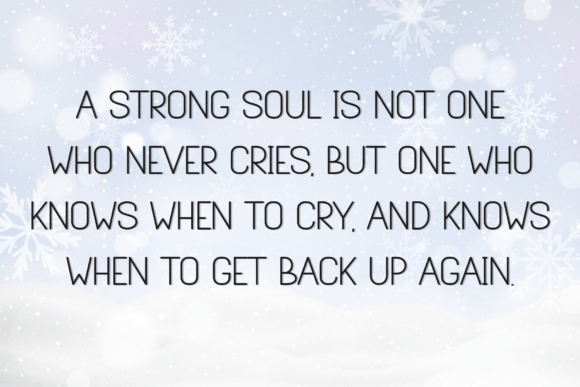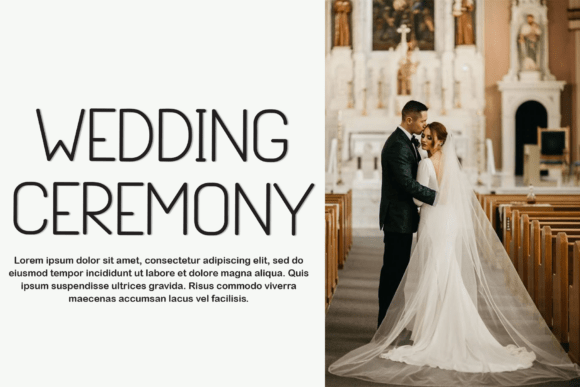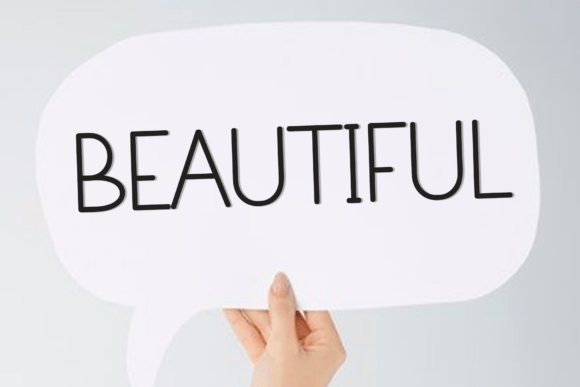
Introduction to Mother Queen Font
Have you ever been browsing through a design project and come across a font that perfectly captures the essence of your creative vision? For many designers, this moment is a game-changer – the perfect combination of style and functionality that elevates their work to the next level. This is exactly what the Mother Queen Font promises to deliver.
With its unique strokes and soft touch, Mother Queen Font is a versatile design resource that can be used in a wide range of creative projects, from crafting beautiful graphics to designing eye-catching logos. Its high-quality design makes it an ideal choice for designers who value precision and attention to detail.
Whether you’re working on a design project that requires a touch of elegance or a bold statement, Mother Queen Font is a valuable asset that can help you achieve your creative goals. And the best part? It’s available for free download, making it an accessible design resource for designers of all levels.
Key Features of Mother Queen Font
- Unique, elegant design perfect for creative projects and artistic endeavors
- High-quality design, crafted with attention to detail and precision, making it an excellent choice for any creative project
Honest Review: Mother Queen Font
I recently had the chance to work with the Mother Queen Font for a creative project, and I must say, it was a great experience. This font is a fantastic design resource that can elevate the look of any digital or print project.
One of the things that stands out about Mother Queen Font is its high quality and versatility. The font is available for free download, which is a huge bonus for designers on a budget. The transparent background makes it easy to use in various design scenarios.
Here are some things that work well:
- ✨ High quality and crisp lettering
- ✨ Versatile and suitable for various design projects
- ⚠️ Limited character set (not suitable for extended text)
- ⚠️ Not ideal for small text sizes
Overall, I’m impressed with Mother Queen Font. It’s a great design resource for anyone looking to add a touch of elegance to their project. With its high quality and versatility, it’s definitely worth checking out.
The Mother Queen Font is ideal for creative projects such as logo design, branding, and typography-based art. Its versatility and high quality make it a great addition to any design resource.